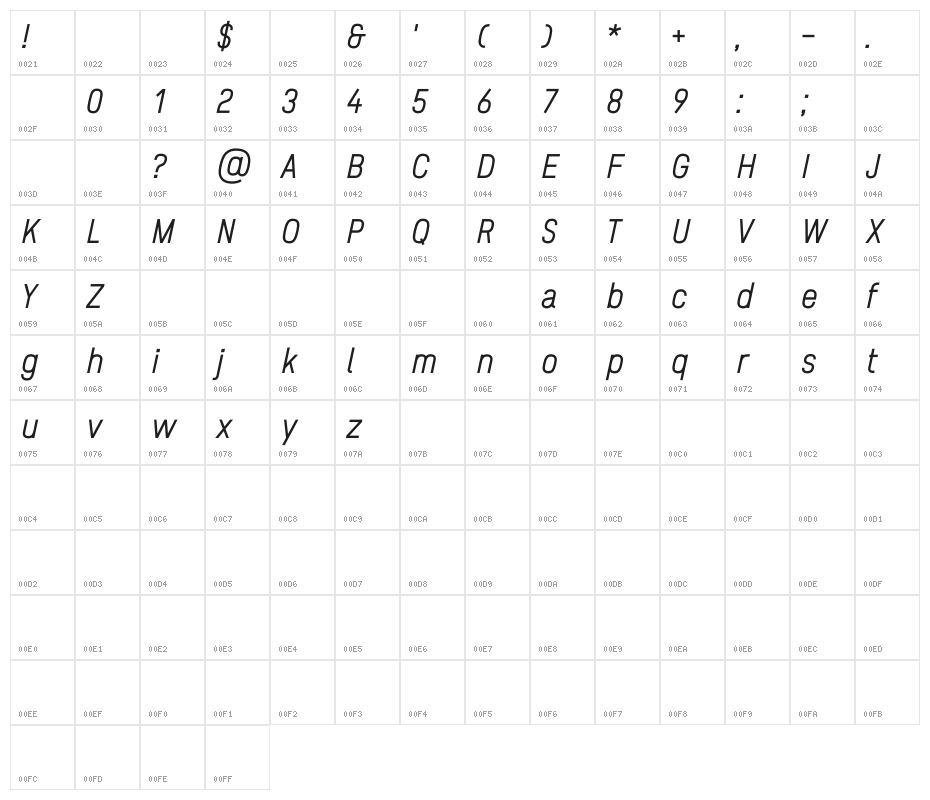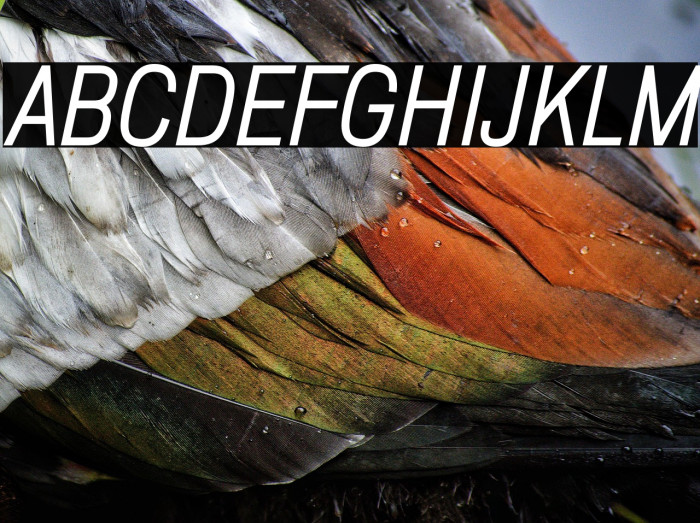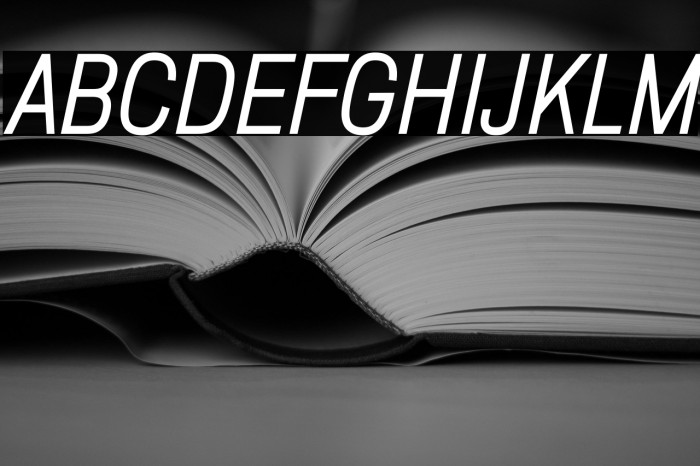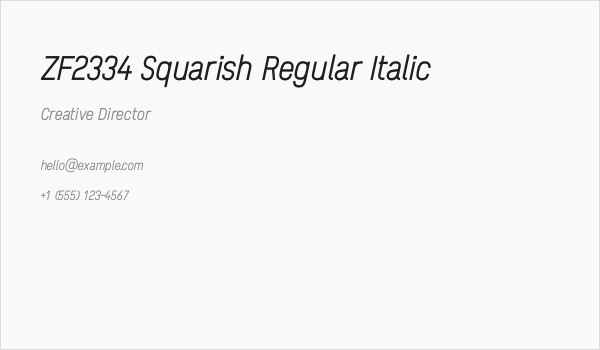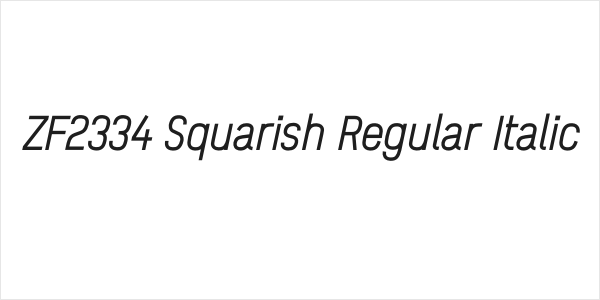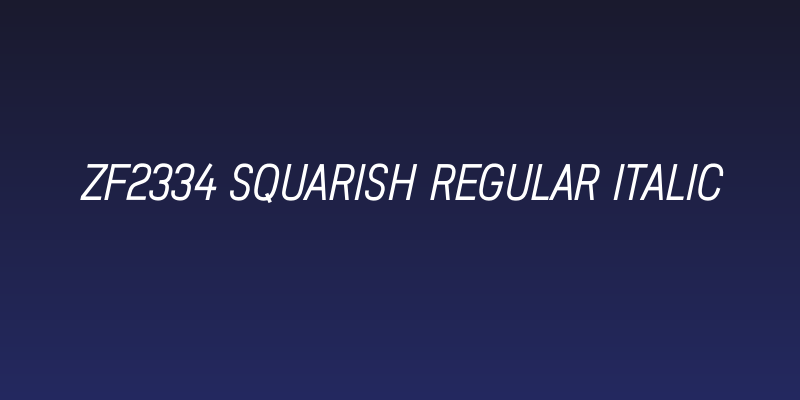
ZF2334 Squarish Regular Italic Font
ZF2334 Squarish Regular Italic Description
This font features a modern and sleek design with a slightly italicized style, giving it a dynamic and forward-leaning appearance. The characters are clean and geometric, with a consistent stroke width that maintains a uniform look across all letters and numbers. The uppercase and lowercase letters are well-proportioned, ensuring readability and balance. The numerals are clear and distinct, making them suitable for various applications. Special characters are included, adding versatility to the font's use. The overall style is contemporary, making it ideal for projects that require a modern and professional touch.
Proposed ProjectsIdeal for branding, advertising, digital media, and editorial design.